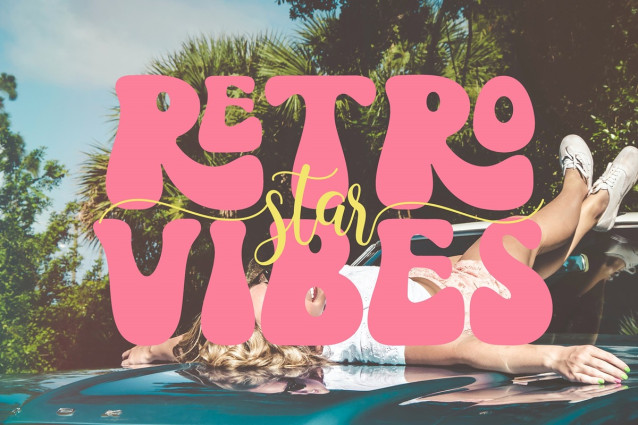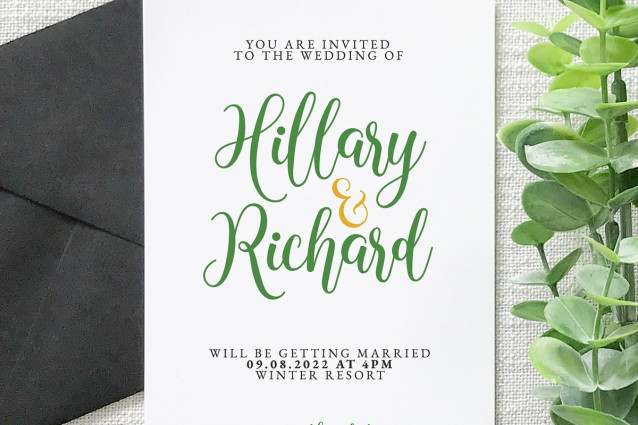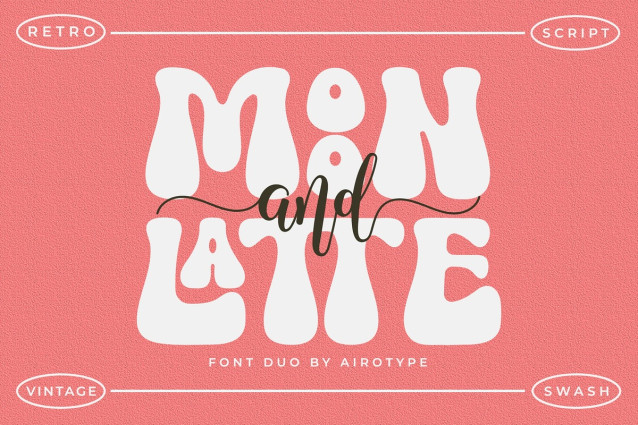
Moon And Latte Font
Moon And Latte Font is font duo font. The first font is bold retro font with bubbly and cute vibes. It has some ligatures for its uppercase. The second one is tiny and chic script cursive font with tail swash for its lowercase. It has short tail and long tail.This font duo can be used as a pair font or individual, depends on the theme of the design.This retro and script font can be used for any projects, especially with vintage style, such as logo, crafting, branding, t-shirt, sticker, sublimation, quotes, wedding, invitation and many more.